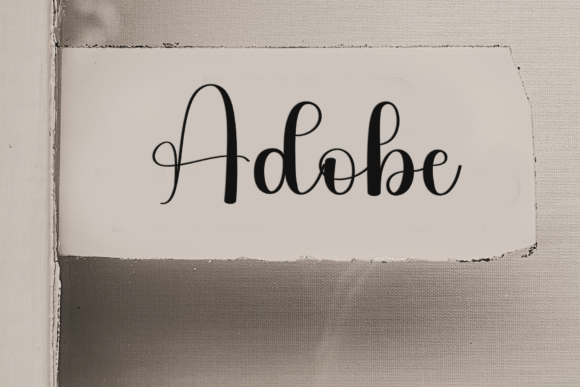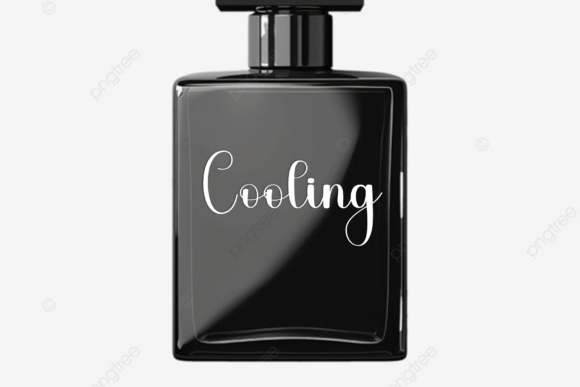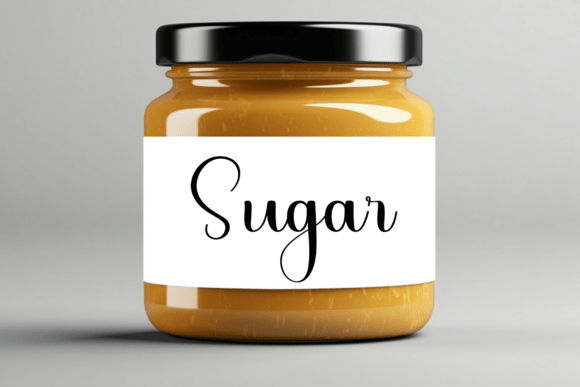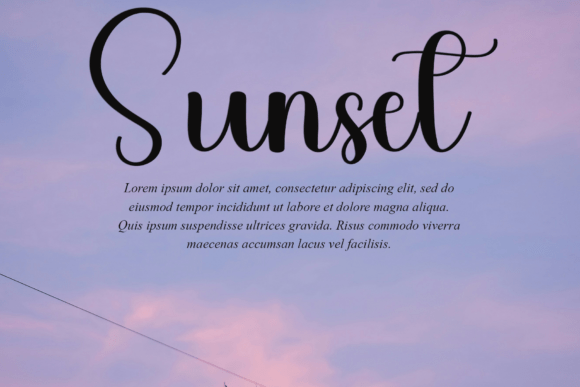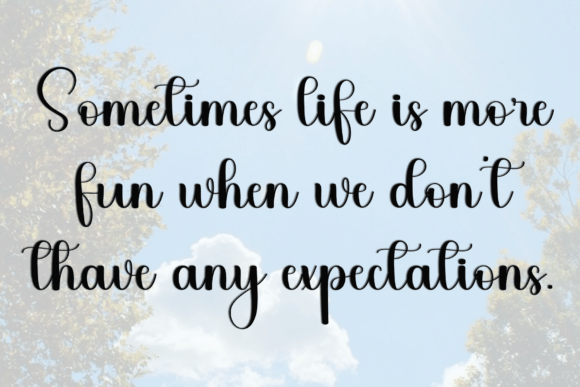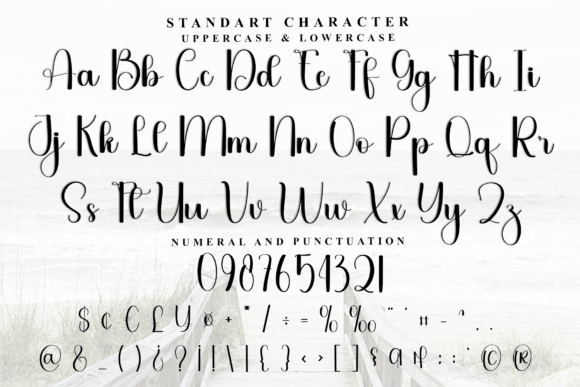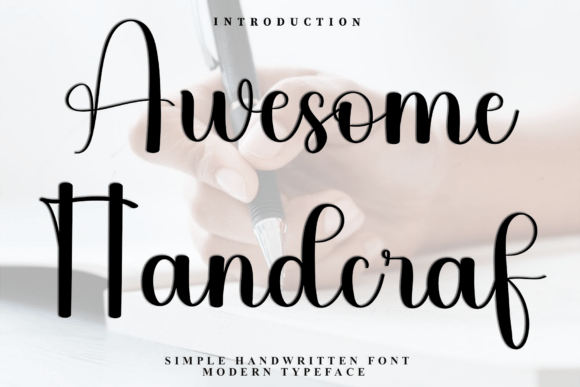
Discover the Charm of Awesome Handcraf Font: Elevate Your Designs with a Unique Touch
In the world of typography, a good font can make all the difference in the success of a design project. For designers, crafters, and creative enthusiasts, finding the perfect font that combines aesthetics with versatility is a constant quest. This is where the Awesome Handcraf Font comes into play, offering a beautiful and eye-catching solution that is sure to transform your designs.
The Unique Appeal of Awesome Handcraf Font
Awesome Handcraf Font stands out with its soft, unique touch that breathes life into any design project. Its distinctive strokes are meticulously crafted to give the font a special character, making it not just a typographic element but a meaningful part of your creative work. Whether you’re working on a logo, a crafting project, or any other form of visual communication, this font’s unique appeal is sure to captivate your audience.
One of the key advantages of the Awesome Handcraf Font is its incredible versatility. With a range of characters at your disposal, you can experiment with various design combinations to bring your vision to life. This font is perfect for a multitude of applications, from design projects and crafts to other creative works. Its adaptability makes it an invaluable resource for designers and crafters who are looking to add a personal touch to their creations.
Seamless Compatibility for Wide Application
Ideal for Various Products and Projects
The natural style of Awesome Handcraf Font lends itself beautifully to a variety of products and projects. From branding materials and packaging to digital content and handmade crafts, this font can enhance your designs, making them more appealing to a broad audience. Its charm and character have the power to transcend different artistic and creative fields, allowing you to connect with viewers on a deeper level.
Why Choose Awesome Handcraf Font?
- Unique Design: Offers a soft, unique touch that sets it apart from more conventional fonts.
- Versatility: Features various characters for diverse design applications.
- Adaptability: Suitable for a wide range of projects, from digital designs to handmade crafts.
- Aesthetic Appeal: Enhances designs, making them more engaging and attractive to audiences.
Tips for Using Awesome Handcraf Font
To make the most of Awesome Handcraf Font, consider the following tips:
- Experiment with Sizes: Play with different font sizes to emphasize certain words or phrases.
- Mix and Match: Combine the font with other typography for a unique design contrast.
- Consider Color: Choose colors that complement the soft and unique feel of the font.
- Use in Combination with Images: Pair the font with images or illustrations that resonate with its natural and crafted feel.
Awesome Handcraf Font is more than just a typographic element; it’s a tool that can elevate your designs, adding a touch of uniqueness and charm. Its versatility, compatibility, and aesthetic appeal make it an excellent choice for designers and crafters looking to leave a mark in their respective creative fields. By incorporating Awesome Handcraf Font into your projects, you’re not just choosing a font; you’re embracing a design philosophy that values individuality and creativity. So, why settle for ordinary when you can make your designs truly awesome with Awesome Handcraf Font?